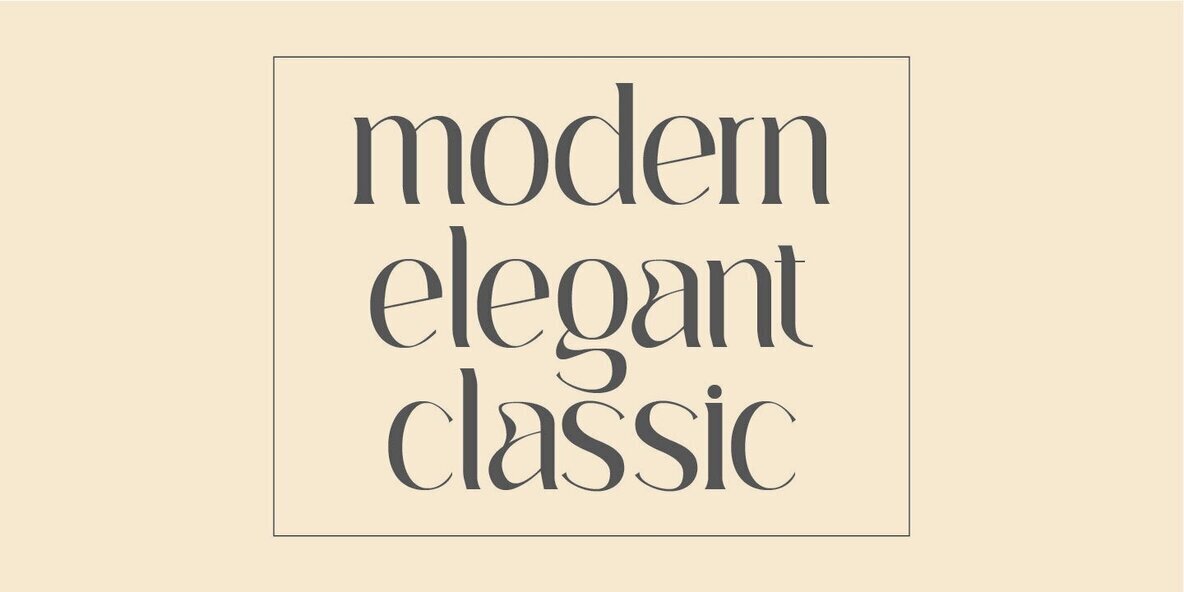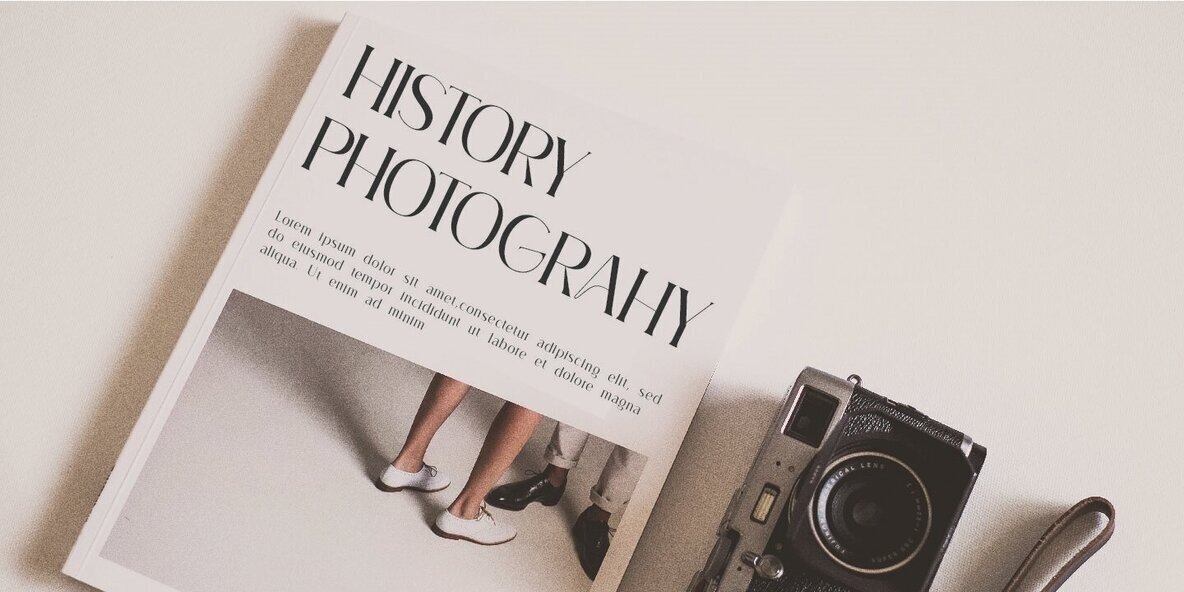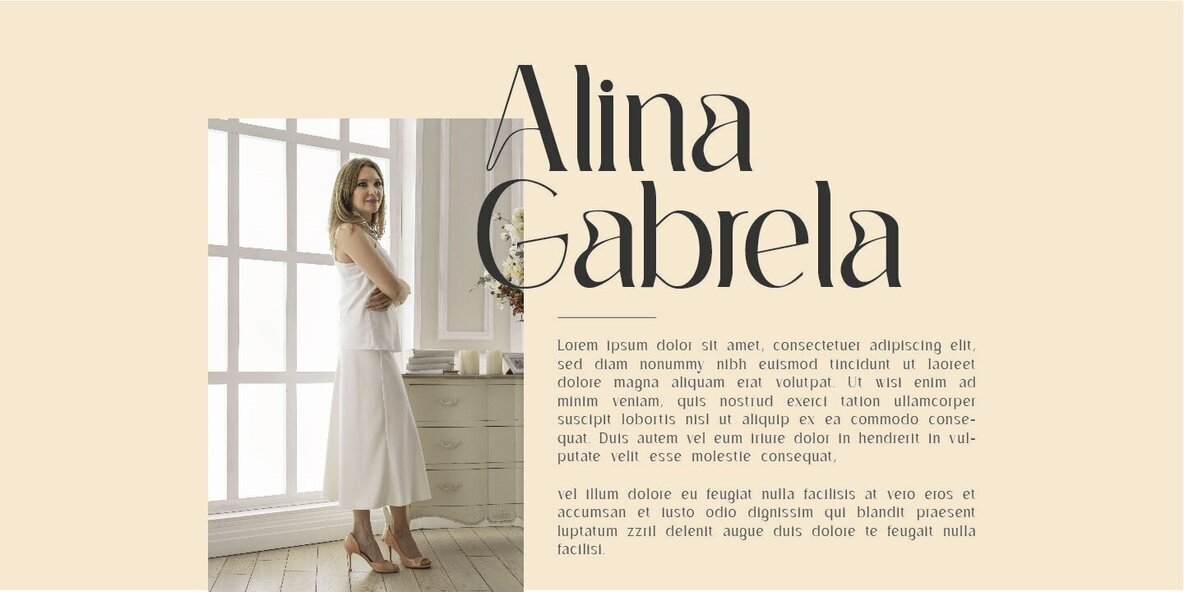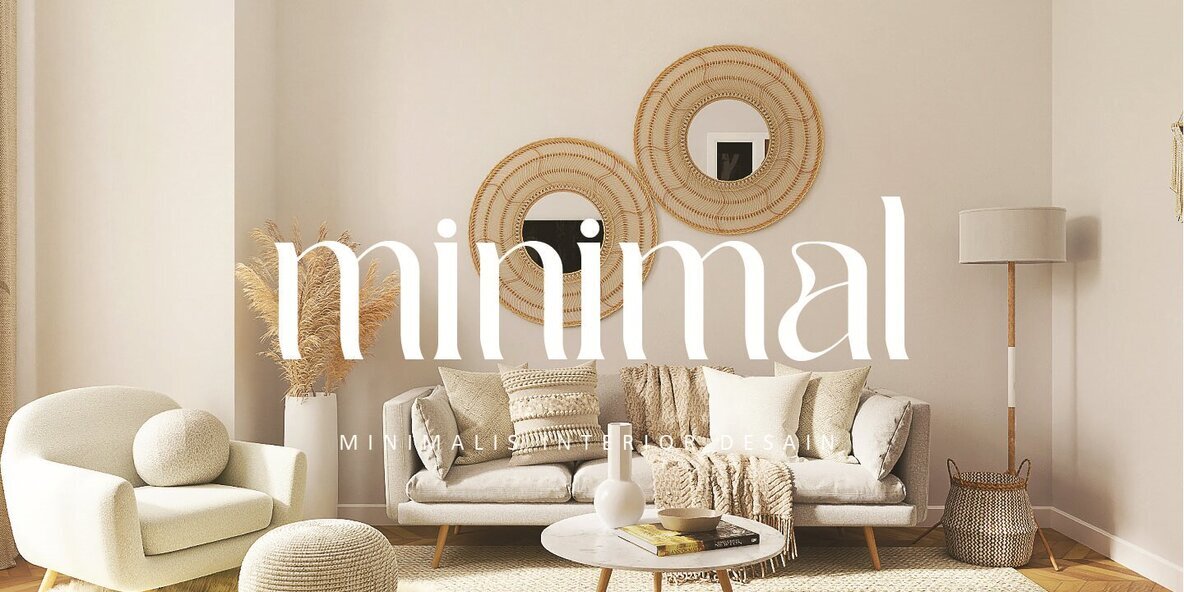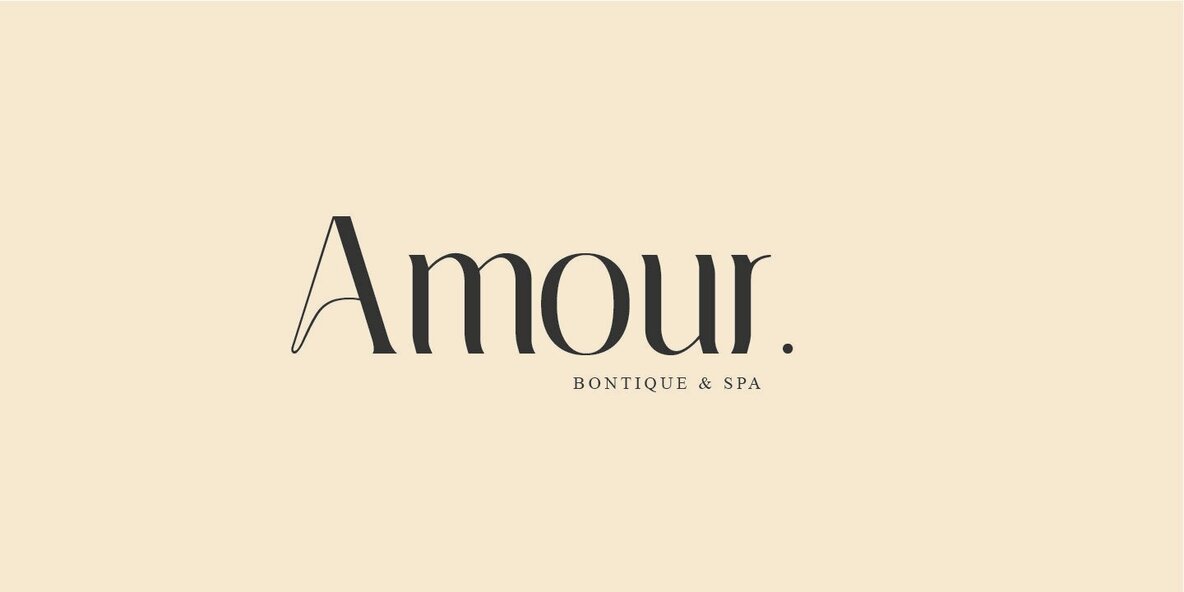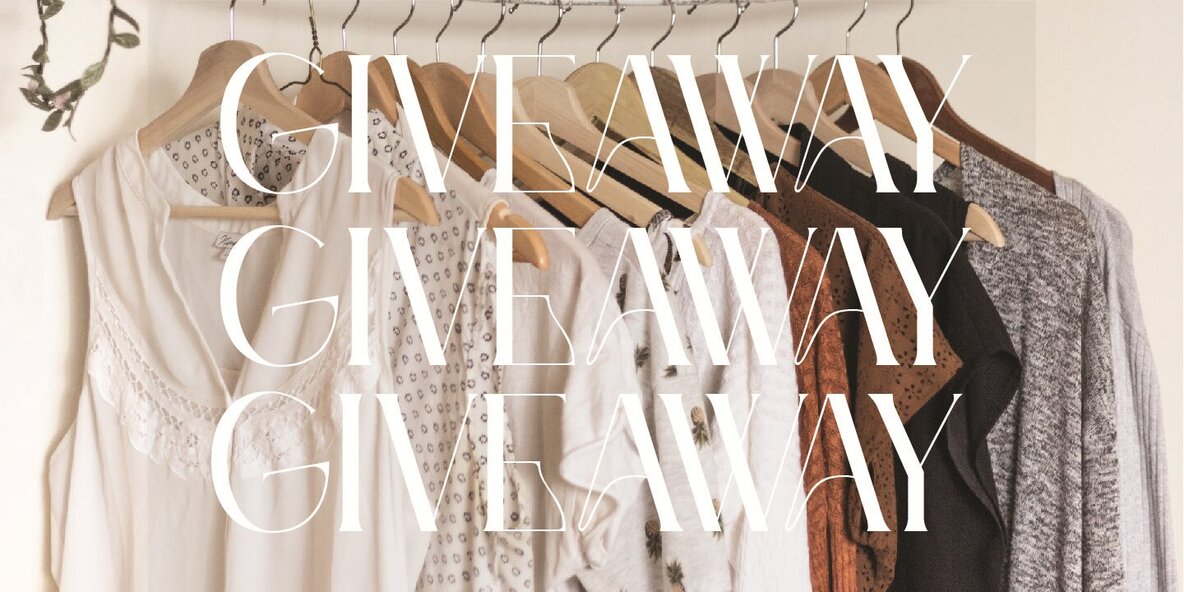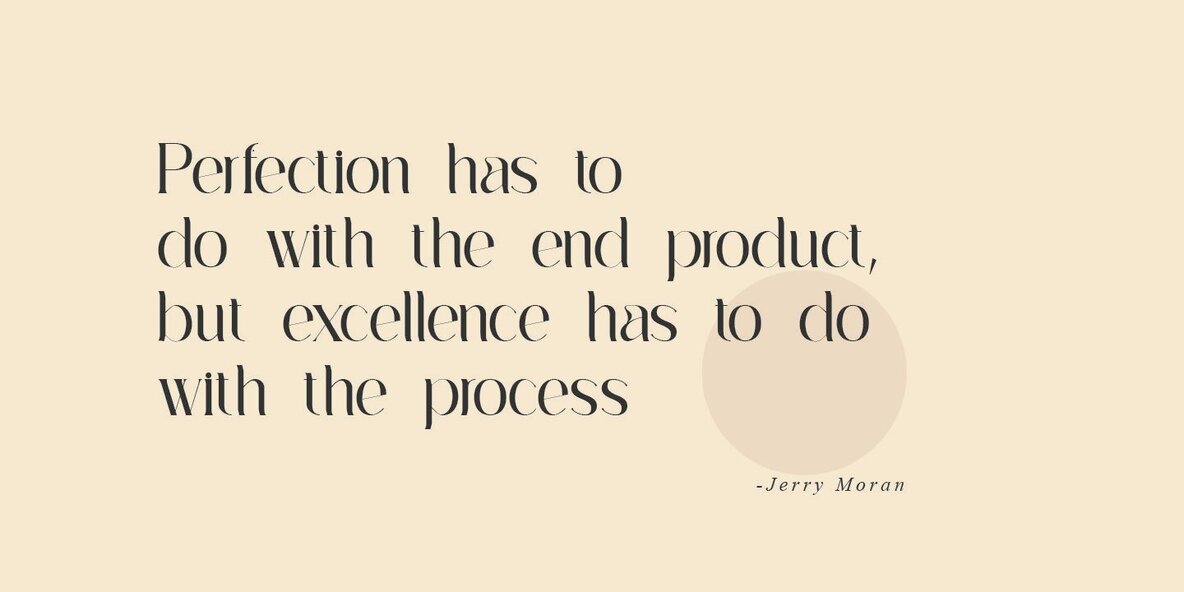
Malden Font
Malden Regular
Malden is an exquisite serif font that embodies elegance and versatility. Adorned with beautiful alternates and special glyphs, this typeface by Muksal Creative seamlessly integrates ornamental details and supports multiple languages. Its design adapts effortlessly to diverse applications, making it a reliable choice for both grand headlines and subtle body text. Perfectly suited for a wide range of projects, Malden excels in editorial layouts, logo design, and product packaging. Its sophisticated presence also enhances clothing branding and magazine headers, or functions gracefully as a stylish text overlay on background images.Malden: An Elegant Serif Typeface